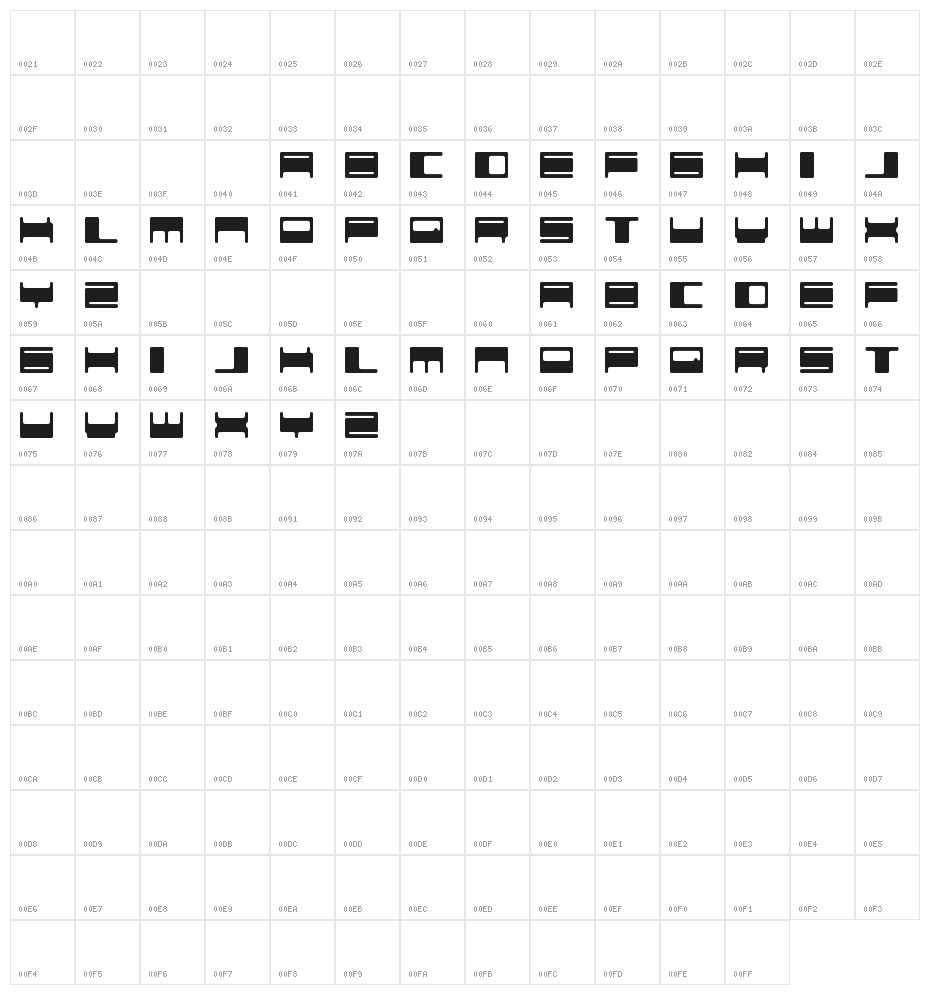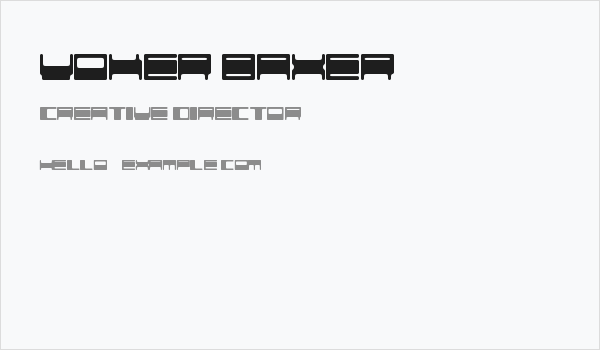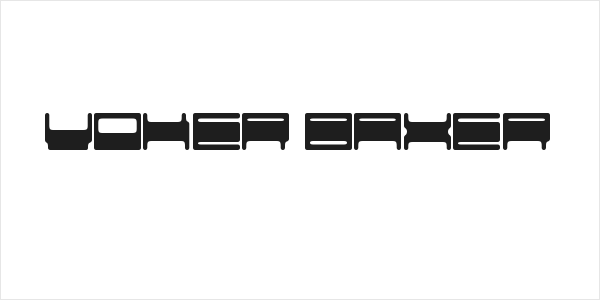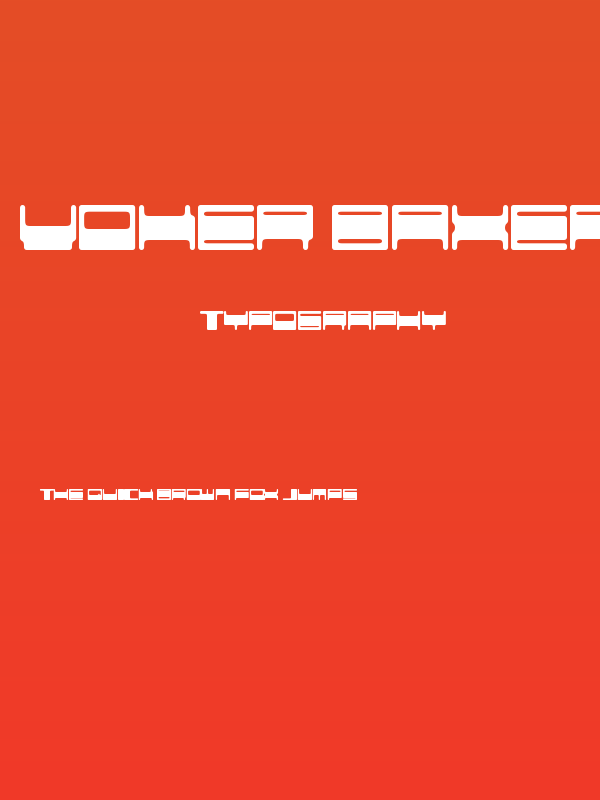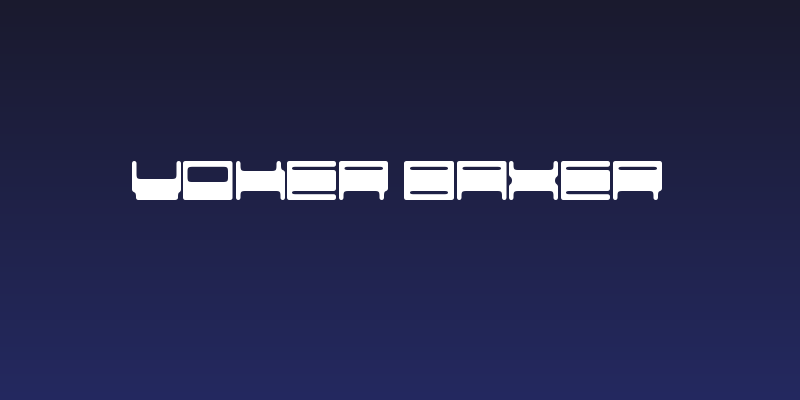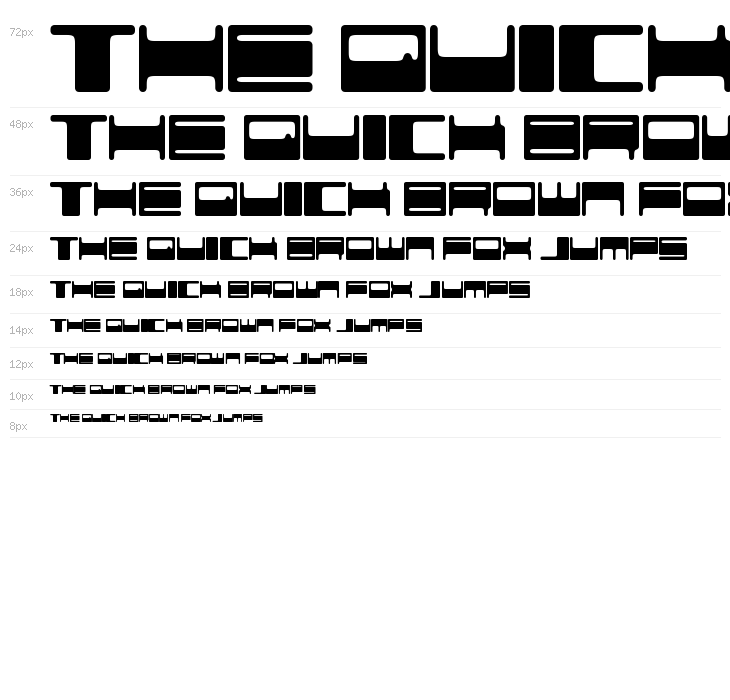
Voker baxer Font
Voker baxer Description
This font features a bold, geometric design with a futuristic and industrial feel. The characters are constructed with thick, uniform strokes, creating a strong visual impact. The squared-off edges and consistent height across all letters give it a mechanical and structured appearance. The font maintains a consistent width, contributing to its modern and sleek look. It is highly legible, making it suitable for various display purposes. The absence of curves and the presence of sharp angles enhance its technical and contemporary style.
| Proposed Projects | Ideal for technology branding, video game titles, sci-fi movie posters, and modern product packaging. |